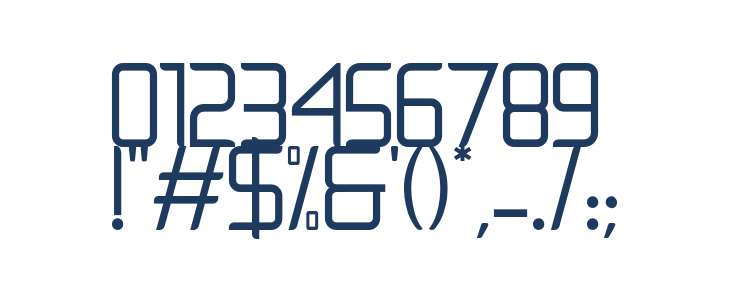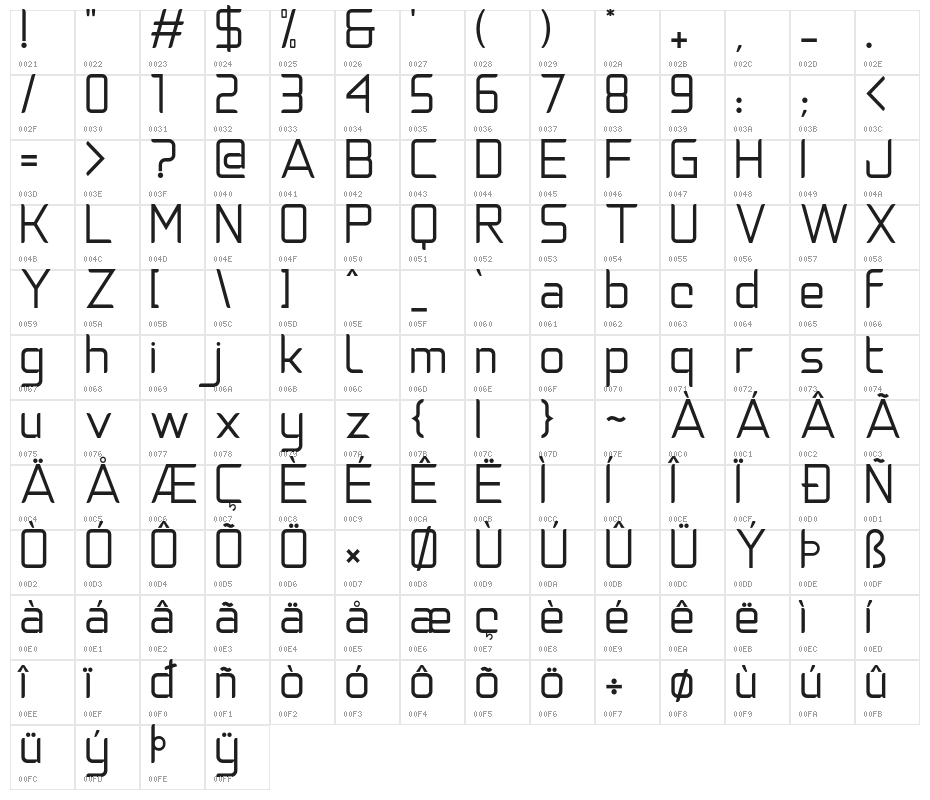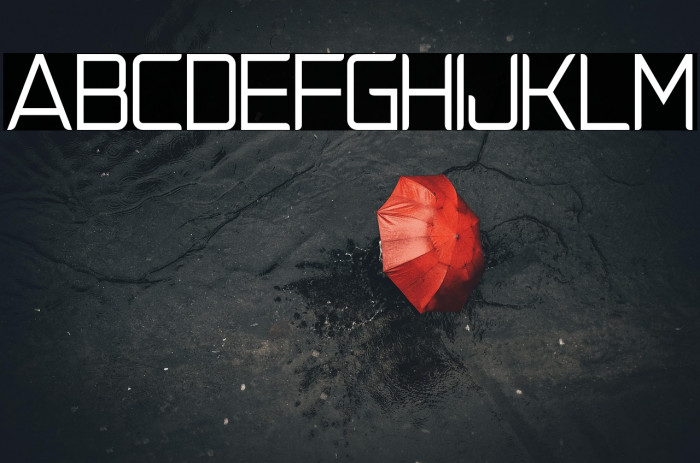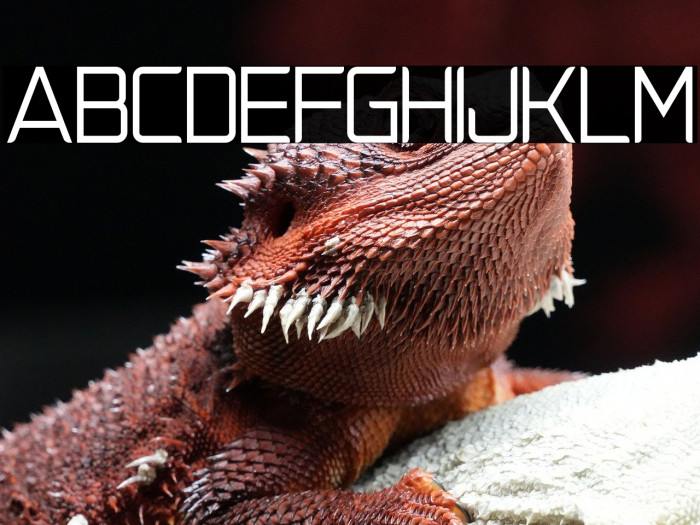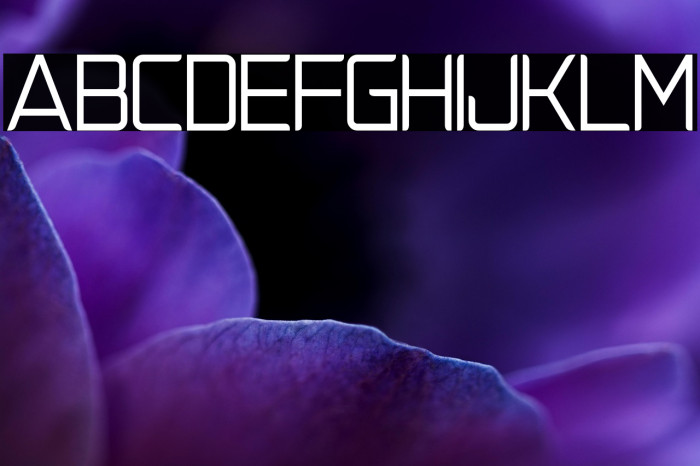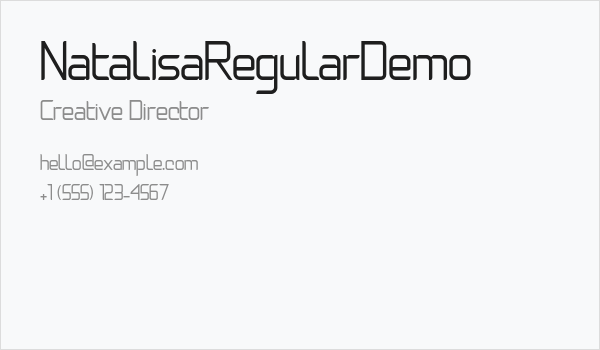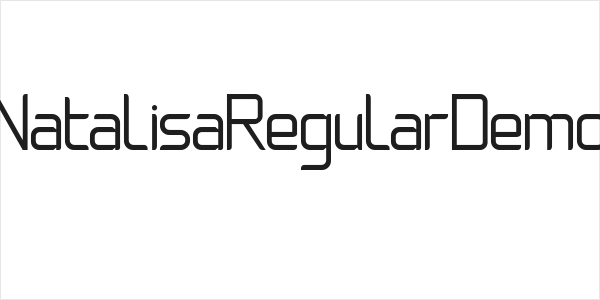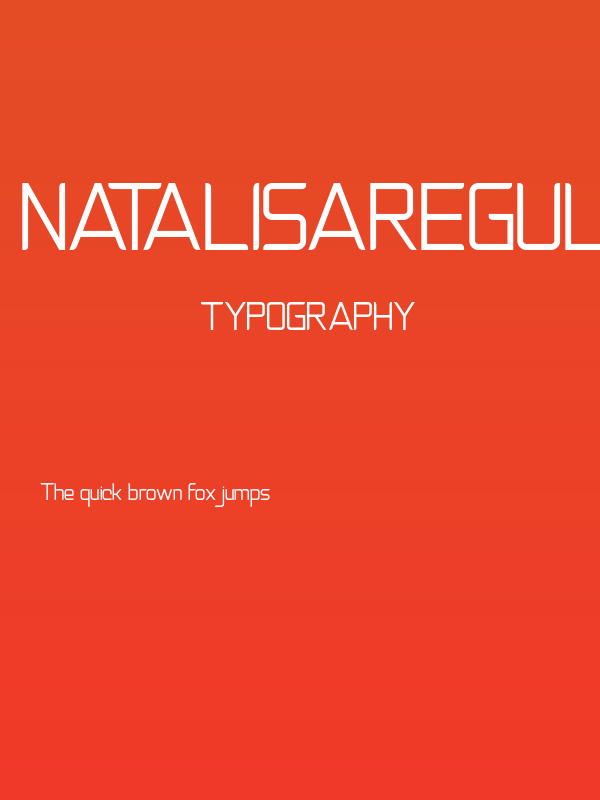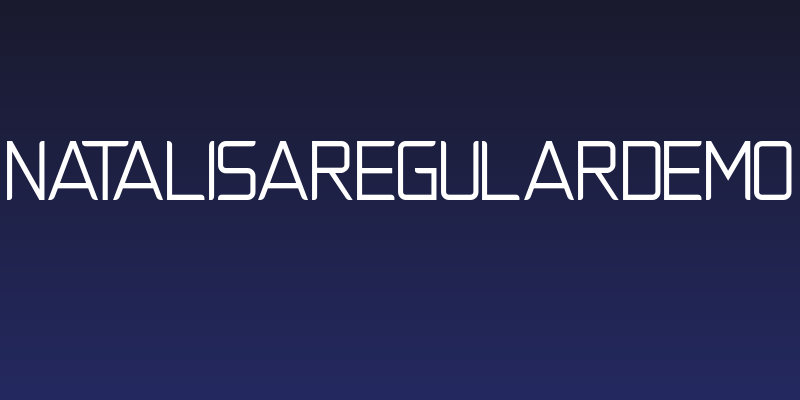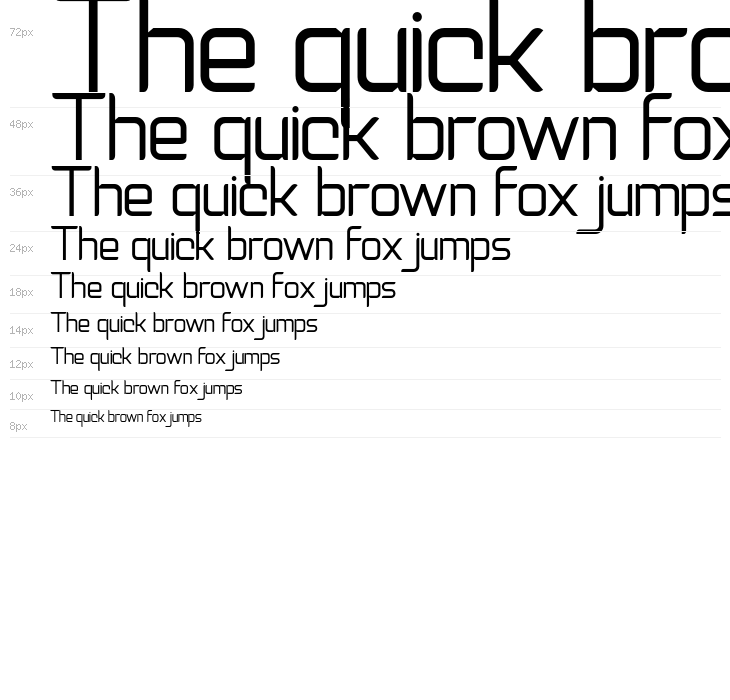
NatalisaRegularDemo Font
NatalisaRegularDemo Description
This font features a modern and geometric design with clean, straight lines and rounded corners, giving it a sleek and futuristic appearance. The uppercase and lowercase letters maintain a consistent height, creating a uniform look. The numerals are distinct and easily readable, while the special characters are designed to match the overall aesthetic. The font's structure is open and airy, making it suitable for various design applications where clarity and style are essential.
| Proposed Projects | Ideal for tech branding, modern web design, and futuristic posters. |